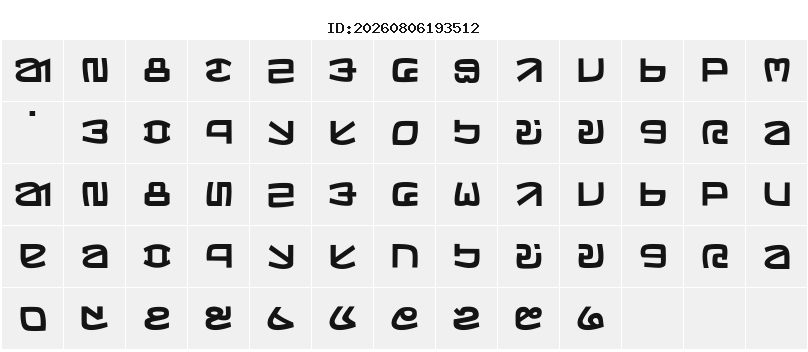
• Font Name: Ol Chiki Bivash
• Manufacturer: SSW GROUP
• Description: 'Ol Chiki Bivash' is a font by SSW GROUP, designed and developed by Bivash Soren in 2013.
Ol Chiki Bivash.ttf is a modern, elegant sans-serif font designed for ultimate readability and visual harmony. Perfect for branding, headlines, web design, and print materials.